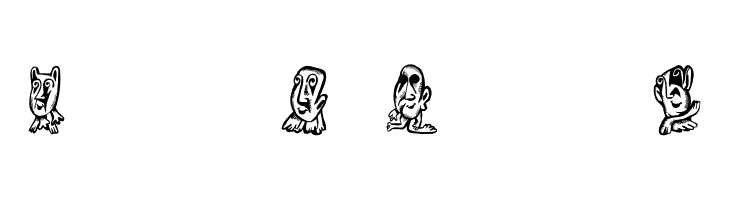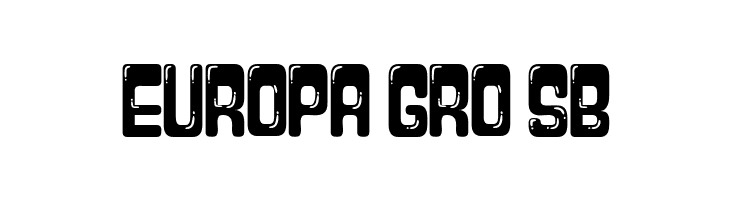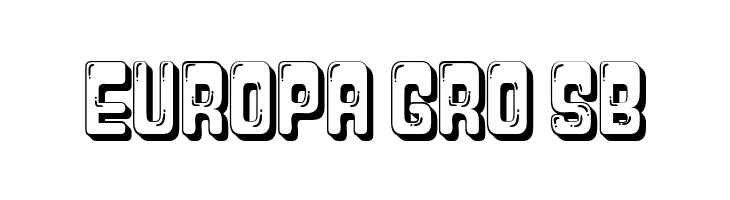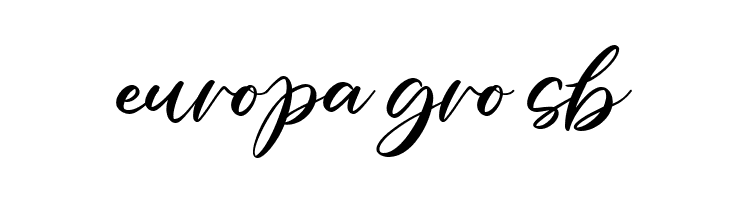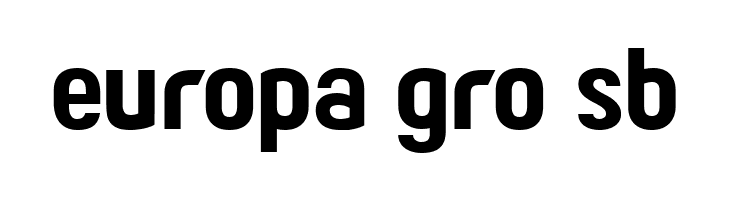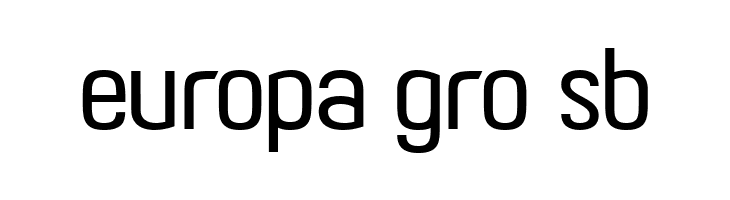
A clean, modern monospaced font with uniform character widths and low contrast.
A bold, 3D hollow font with a modern, geometric style.
A bold, playful font with a bubbly, three-dimensional appearance.
A bold, modern font with strong geometric influences and uniform strokes.
A modern, geometric font with rounded edges and balanced proportions.
A modern, flowing cursive font with bold, expressive characters.
A dynamic and elegant script font with fluid, connected letterforms.
A whimsical and artistic font with characters resembling abstract faces.
A geometric, multi-line decorative font with a modern, futuristic style.